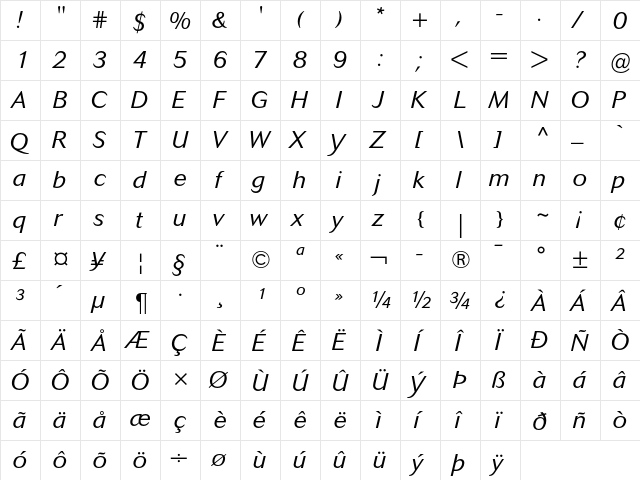
Cosmos Light Italic
Design Context for Cosmos Typeface
Cosmos takes a measured approach to typography — its balanced proportions and neutral character make it a reliable workhorse for both digital and print work. Its italic angle brings a sense of urgency and motion to the letterforms. The delicate stroke weight brings airiness and refinement to layouts.
Pro Tip: Use Cosmos for emphasis, pull quotes, and subheadings where its slanted energy can add rhythm to the layout.